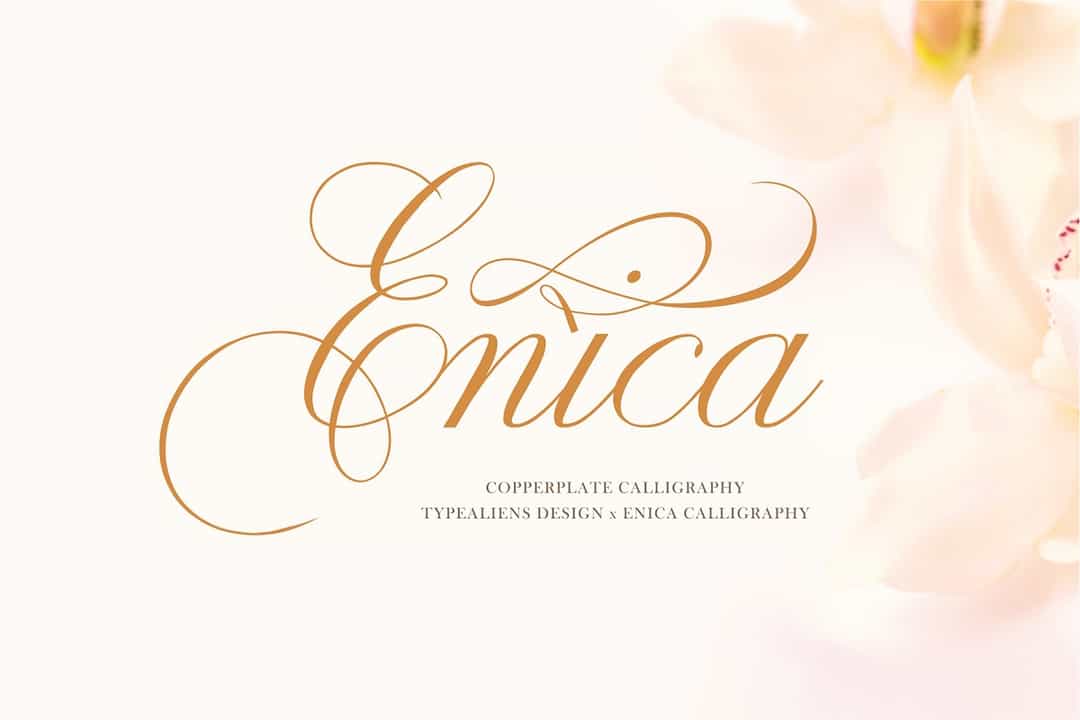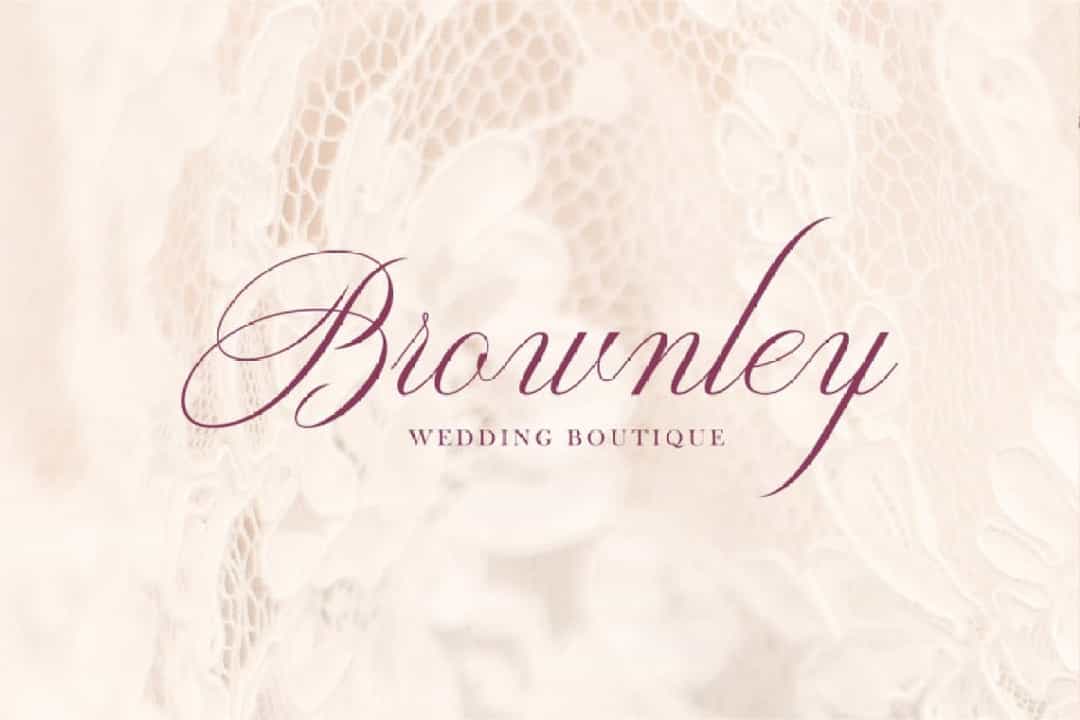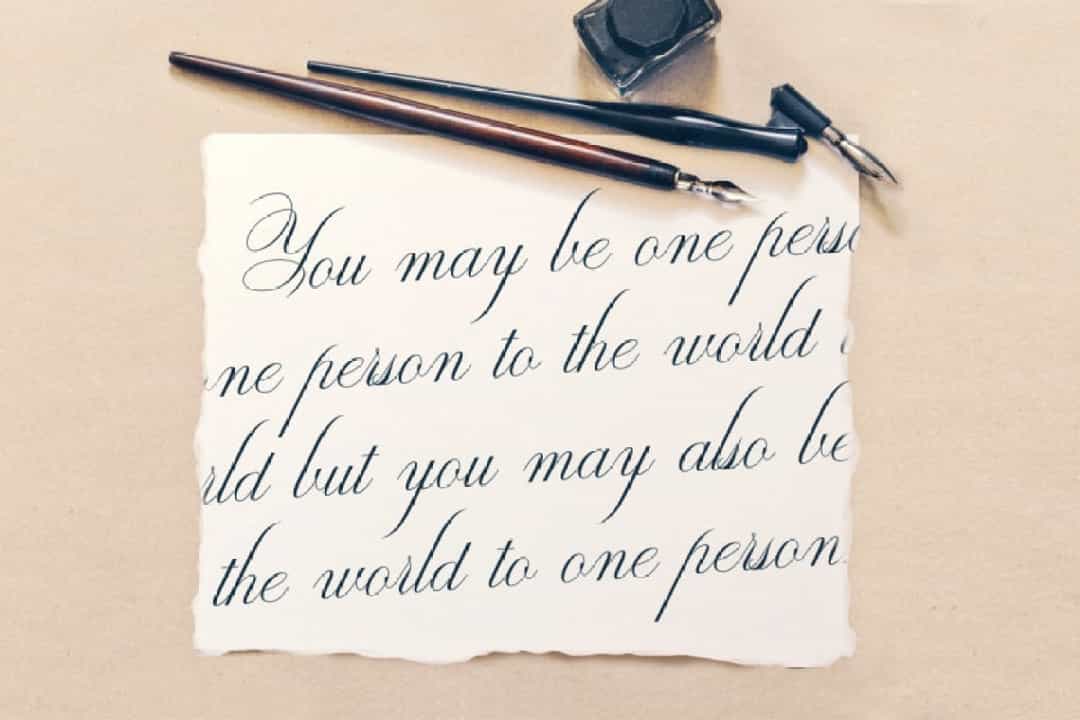
Enica Calligraphy – hand-crafted script font that has an elegant handwritten style. The font appear elegant, natural, and elegant. It’s created and used by Typealiens. Enica is a beautiful handwritten font that has been created to become a cult beloved.